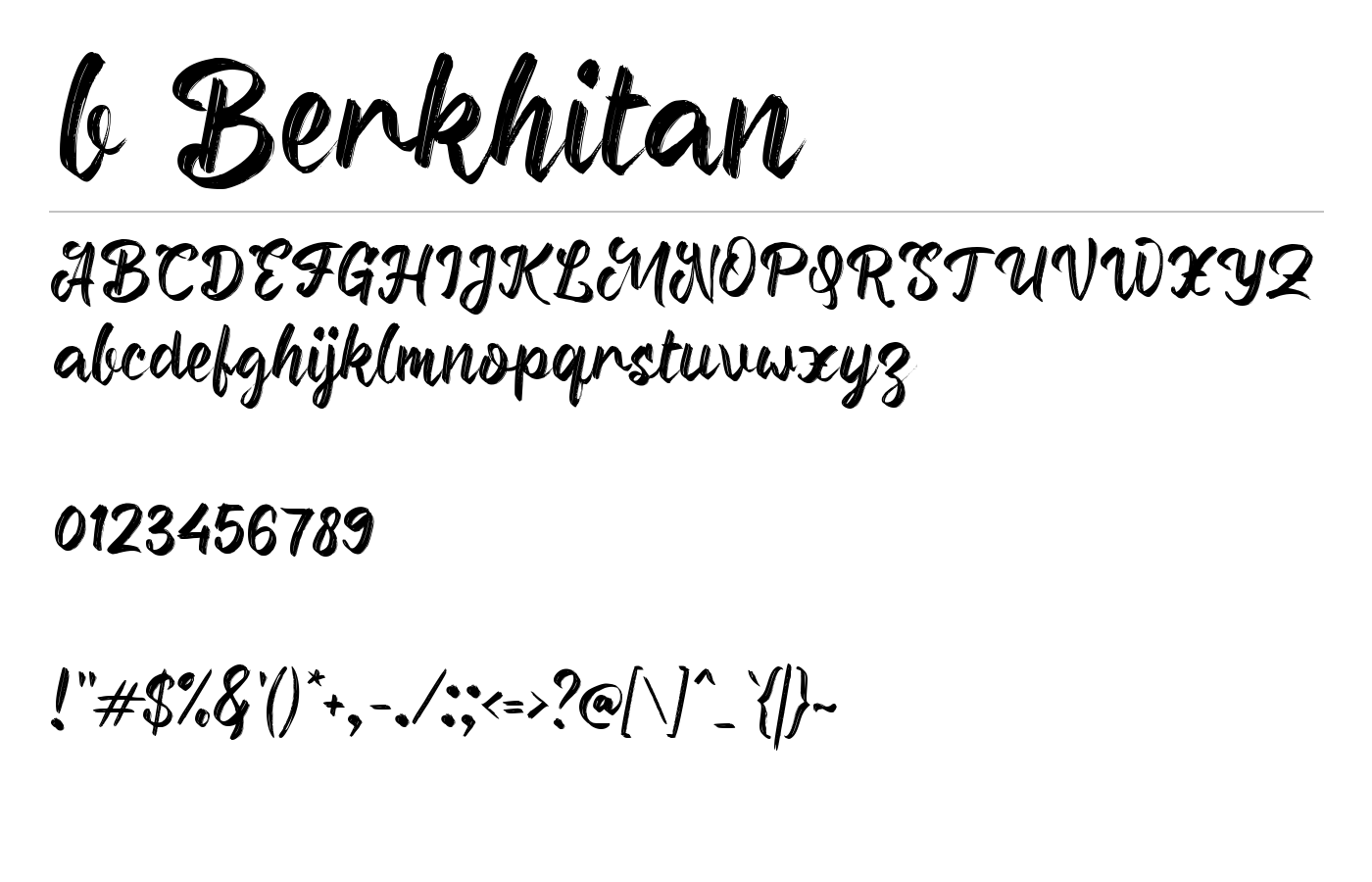
Berkhitan is a lively and expressive script font with a bold, brushstroke texture that gives it an energetic, hand-painted feel. Its playful yet elegant letterforms with moderate contrast and fluid strokes make it perfect for creative branding, invitations, and artistic projects seeking a personal, handcrafted touch. This font works especially well in headlines and logos where a dynamic and approachable personality is desired.
b Berkhitan Font